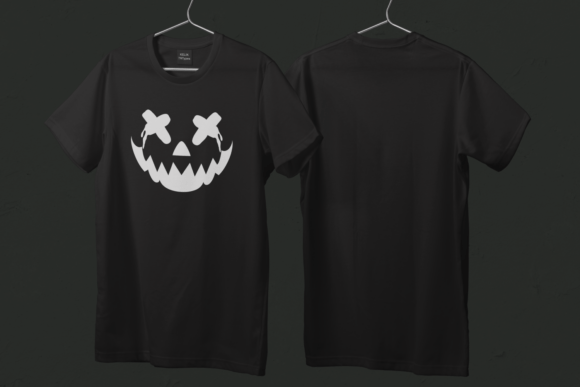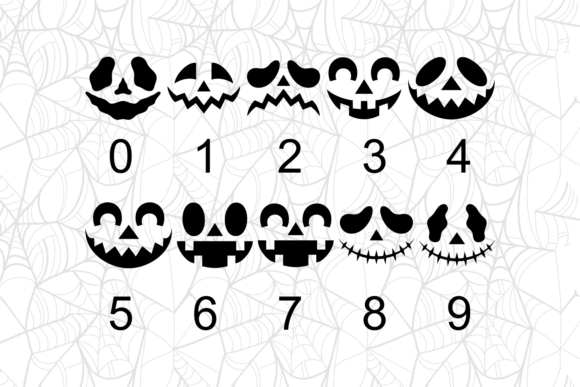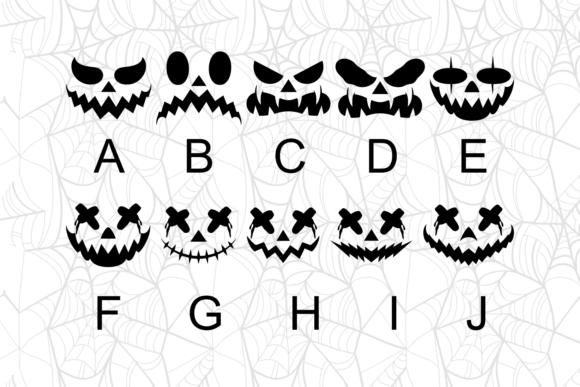
Unleash the Spook: Elevate Your Halloween Designs with the Halloween Scary Face Font
As the spookiest time of the year approaches, designers and crafters are on the lookout for the perfect typography to set the mood for their Halloween creations. Look no further than the Halloween Scary Face Font, a dingbats font that instantly injects a dose of eerie fun into any design. With its bold, jagged strokes and exaggerated facial expressions, this font transforms simple letters and symbols into pumpkin-carving-inspired graphics that are sure to send chills down the spine.
The Perfect Blend of Spooky and Playful
What sets the Halloween Scary Face Font apart is its unique ability to strike the perfect balance between spooky and playful. The font’s sharp angles, unique character variations, and dramatic contrast make it perfect for creating a wide range of Halloween-themed designs, from party invitations and posters to digital stickers and packaging. Whether you’re aiming to create a hauntingly eerie atmosphere or a fun and playful vibe, this font is the perfect tool to bring your vision to life.
The versatility of the Halloween Scary Face Font is one of its most appealing features. Its high-impact design makes it perfect for both print and digital projects, allowing designers to add personality to a wide range of creations. Use it to create:
- Eye-catching Halloween party invitations that set the tone for a spooktacular celebration
- Themed posters and flyers that grab attention and leave a lasting impression
- Digital stickers and graphics that add a touch of eerie fun to social media and blogs
- Packaging that stands out on store shelves and adds a touch of seasonal charm
Why Designers Love the Halloween Scary Face Font
For designers, the Halloween Scary Face Font is a must-have for several reasons:
- Unique and Memorable Designs: The font’s bold and playful design ensures that your creations will stand out from the crowd and leave a lasting impression.
- Time-Saving: With its extensive range of characters and symbols, the Halloween Scary Face Font saves designers time and effort, allowing them to focus on other creative aspects of their projects.
Tips for Using the Halloween Scary Face Font
To get the most out of the Halloween Scary Face Font, here are a few tips to keep in mind:
- Experiment with Different Sizes and Colors: Play around with different sizes and colors to create a unique and eye-catching design.
- Combine with Other Fonts: Pair the Halloween Scary Face Font with other fonts to create a contrasting look and add visual interest to your design.
- Use it Sparingly: Use the font sparingly to create a sense of drama and emphasis, or use it throughout your design for a bold and playful look.
The Halloween Scary Face Font is a versatile and high-impact dingbats font that’s perfect for designers and crafters looking to create unforgettable seasonal designs with a creepy charm. With its bold, jagged strokes and exaggerated facial expressions, this font is sure to add a touch of eerie fun to any project. Whether you’re creating Halloween party invitations, themed posters, digital stickers, or packaging, this font is a must-have for anyone looking to unleash the spook and create a hauntingly memorable design.